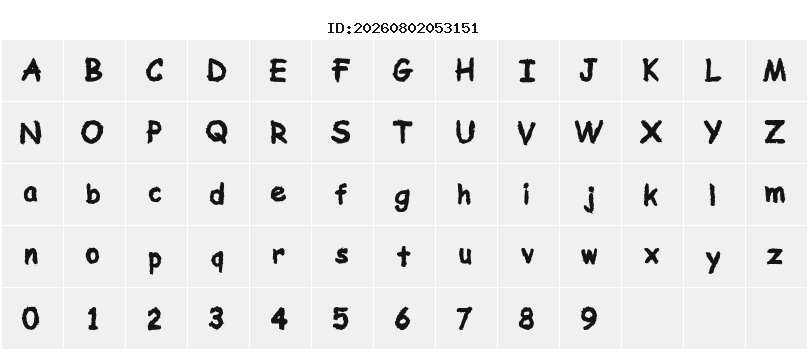
MN DARKRIVER Preview
About MN DARKRIVER.ttf
MN DARKRIVER.ttf is a modern, elegant sans-serif font designed for ultimate readability and visual harmony. Perfect for branding, headlines, web design, and print materials.